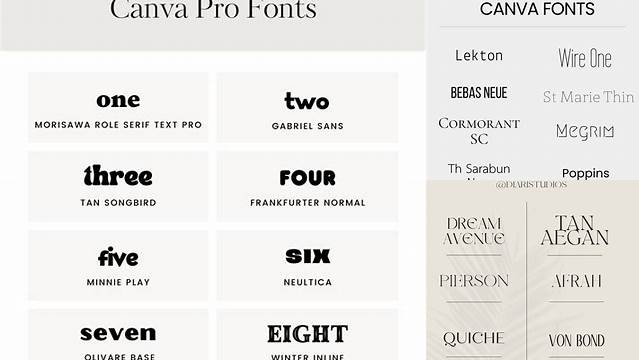
Canva's Minimalist Bold Fonts: Design Like A Pro
Hey guys! Let's dive into something super cool: minimalist bold fonts in Canva. If you're looking to create eye-catching designs that scream simplicity and sophistication, you're in the right place. This article is your ultimate guide to mastering these powerful fonts and using them to elevate your Canva game. We'll explore everything from choosing the perfect font to pairing them with other design elements and using them for various projects. Get ready to transform your designs and make them pop with minimalist boldness!
1. Understanding Minimalist Design and Its Impact
So, what exactly is minimalist design, and why is it so important? Well, minimalist design is all about stripping away the unnecessary and focusing on the essentials. It’s about creating a clean, uncluttered look that communicates your message with clarity and impact. Think of it as the opposite of visual clutter. In a world saturated with information and flashy visuals, minimalist designs cut through the noise, grabbing attention and conveying your message directly. This approach isn’t just about aesthetics; it’s a philosophy that emphasizes functionality, simplicity, and the effective use of negative space. The beauty of minimalist design lies in its ability to be both modern and timeless, ensuring your designs remain relevant and visually appealing for years to come. Minimalist designs are incredibly versatile, working well across a wide range of projects, from website layouts to social media graphics and print materials. The key is to embrace restraint, choosing each element carefully and avoiding anything that doesn't contribute to the overall message. This can mean using a limited color palette, simple typography, and carefully chosen imagery. In a world where attention spans are shrinking, a minimalist approach ensures your message is delivered clearly and memorably.
Now, what kind of impact does this have? A lot! Minimalist designs often convey a sense of professionalism and trustworthiness, which is critical for businesses and individuals looking to build credibility. When a design is clean and easy to understand, it shows that you value clarity and precision. It shows you have a clear understanding of your message and your audience. It demonstrates that you’ve put careful thought into your communication. Furthermore, minimalist designs often enhance the user experience, making it easier for viewers to consume information. By removing distractions and focusing on the core elements, minimalist designs make it easier for your audience to understand your message and take action. With fewer visual elements to process, the viewer’s eye is naturally drawn to the most important aspects of your design. This is where minimalist bold fonts become crucial. They help you direct attention to the most important words or phrases. This allows you to communicate your key messages quickly and efficiently. This ability to guide the viewer's eye is one of the most powerful benefits of minimalist design. By using minimalist bold fonts strategically, you create visual hierarchies that ensure that your message gets across. The ability to create a powerful impact with simple means is where minimalism truly shines.
2. Choosing the Right Minimalist Bold Fonts in Canva
Alright, let's talk about picking the perfect minimalist bold fonts in Canva! This is where the fun begins. The font you choose can dramatically impact your design's overall feel, so it’s essential to make informed decisions. Here are some of the best, and how to use them effectively:
- Roboto: A classic sans-serif that is clean, modern, and incredibly versatile. It’s perfect for body text and headlines, as it's highly readable and works well in both large and small sizes. You can find various weights of Roboto in Canva, allowing you to create visual hierarchies. For a bolder statement, opt for Roboto Black. For a softer touch, stick with the regular or light weights. It is one of the most popular fonts due to its readability and neutral appearance.
- Poppins: This is another great sans-serif that is known for its rounded corners and friendly appearance. Poppins is excellent for headlines and display text, adding a touch of personality without sacrificing legibility. Consider using Poppins Bold for key messages. You can use Poppins in a wide array of design contexts, from websites to social media. Its clean lines and friendly design make it suitable for various applications. It’s a great choice if you want to convey a sense of approachability.
- Montserrat: Inspired by the architecture of the Montserrat neighborhood in Buenos Aires, this sans-serif has a geometric feel. It's a great choice for creating a modern and stylish look. Montserrat is best for headlines and display text. Use Montserrat Bold for maximum impact. It works particularly well when paired with a more delicate font for body text. It is a popular option for creating a bold and contemporary aesthetic, its use is particularly impactful.
- Lato: A sans-serif known for its friendly yet professional appearance. Lato is highly versatile, suitable for headlines and body text alike. It has a clean, simple design that offers excellent readability. It's a great choice for projects that require a balance of clarity and visual appeal. The various weights of Lato, including bold, allow you to create a clear visual hierarchy. This font helps ensure that your message is both accessible and engaging.
Key Considerations:
- Legibility: Always prioritize readability. Your font should be easy to read at various sizes and on different backgrounds. Test your design on different devices to ensure it remains clear.
- Personality: The font's personality should align with your message. Do you want to convey a sense of playfulness? Sophistication? Select a font that matches your brand's tone.
- Contrast: Ensure sufficient contrast between your font and background color. This increases readability. Avoid low contrast combinations, as they strain the eyes.
- Pairing: Consider how your bold font will pair with other fonts in your design. Choose a font that complements your bold headline to create a cohesive look. Less is often more; avoid mixing too many different fonts.
3. Font Pairing Strategies for Minimalist Designs in Canva
So, you've chosen your bold font. Now what? The next step is selecting a complementary font to create a harmonious visual experience. Good font pairing is an art! Here are some strategies to help you create stunning designs:
- Contrast is Key: Pair a bold, attention-grabbing font with a more subtle font for the body text. The contrast will create visual interest and guide the viewer's eye. Use a bold sans-serif headline with a serif font for body text. Or, combine a bold serif headline with a sans-serif body font. This creates a balanced look that is easy on the eyes. For example, use Montserrat Bold for headlines and Open Sans for the body text.
- Match the Mood: Ensure your fonts share a common aesthetic. Use a modern bold font with a contemporary body font, like pairing Poppins with Lato. For a more classic aesthetic, combine a traditional bold serif with a classic serif body font. The goal is for the fonts to feel related, supporting your brand's identity.
- Use Different Weights: Within the same font family, experiment with different weights (light, regular, bold) and sizes. This creates hierarchy without introducing multiple font styles. Use a heavier weight for headlines and a lighter weight for subheadings or body text. This is a simple, effective way to guide the reader’s eye. This method is also a great way to maintain consistency in your design.
- Limit the Number of Fonts: Don’t use too many font styles in one design. It can make your design look cluttered and confusing. Stick to two or three fonts, maximum. Use one for headlines and subheadings, and another for body text. This makes your design look clean and professional.
- Experiment with Font Size and Spacing: Adjust the size and spacing between your fonts to create the desired visual effect. Larger fonts grab attention, and proper spacing enhances readability. Experiment with different sizes until you find a good balance. Adjust line-height and letter-spacing to refine the look.
- Consider the Context: The best font pairings depend on the project. A website needs different fonts compared to a brochure. Social media graphics benefit from clean, readable fonts. Choose fonts that suit your project's purpose.
4. Color Palette Integration with Bold Fonts
Colors and fonts are a power couple! They work together to create a visual language that speaks volumes. In minimalist designs, the right color palette, used alongside your bold fonts, is crucial. Let’s break down how to nail this.
- Monochromatic Palettes: A monochromatic color scheme uses different shades and tints of a single color. This approach is simple and elegant. It highlights the typography. For example, use a bold black font on a light gray background. Or, use navy blue against a lighter blue for a clean and sophisticated look. This allows the font to take center stage.
- Neutral Palettes: Neutrals like white, black, gray, and beige create a clean backdrop for your text. These colors offer high contrast and make your bold fonts stand out. Pair a bold black font with a crisp white background for maximum impact. Or, use a gray font on a beige background for a softer look. Neutral palettes are incredibly versatile and work for any project.
- Limited Color Palettes: Use a palette of two or three colors, including your bold font color. For example, combine a bold font color (e.g., navy blue) with a neutral background (white or gray) and a secondary accent color (e.g., gold). This approach keeps the design focused. It is also super effective and memorable. Choose colors that complement each other and reflect your brand.
- High Contrast: Ensure a strong contrast between your font color and the background color. This is crucial for readability. If you have a light background, use a dark bold font. If you have a dark background, use a light bold font. Avoid low-contrast combinations, which are difficult to read. This is especially important for online and digital content.
- Color Psychology: Colors have psychological effects! Black is associated with sophistication, white with cleanliness, and red with energy. Consider the emotions you want to evoke. Choose colors that reflect your brand's personality. This is what makes your content stand out.
5. Canva's Tools and Features for Bold Font Mastery
Canva is packed with tools and features that let you take your minimalist bold font designs to the next level. Let’s get familiar with them, shall we?
- Text Effects: Explore Canva's text effects, like shadows, outlines, and curves. These can add depth and style to your bold fonts. Use outlines to make your text pop against busy backgrounds. Use shadows for a subtle 3D effect. Experiment with curves to make your text fit circular designs. These features offer tons of creative control and customization.
- Spacing and Alignment: Use Canva's spacing tools to adjust letter spacing, line height, and alignment. Proper spacing is crucial for readability. Ensure your text is aligned correctly for a polished look. Use letter-spacing to adjust how your bold fonts look in the title. Use line-height to create a visual hierarchy in your body text.
- Transparency: Control your font's transparency to create subtle effects. Use this technique for watermarks or design elements in the background. This adds a sense of depth and visual interest without overwhelming the design. Reduce the transparency of a bold font to create a soft, layered effect. This is great for achieving a modern, minimalist look.
- Text Styles: Save your font, size, and color preferences as text styles. This keeps your designs consistent. Use these styles across your projects. Consistency is key for branding. By using text styles, you streamline your design process. This keeps everything looking professional.
- Layers: Canva's layers feature lets you arrange elements in your design. This lets you place your bold fonts in the foreground or background. Use layers to add depth and visual interest. This offers more control over the design. The layers feature helps you to manage complex layouts.
- Templates: Canva offers a wide range of templates with pre-designed bold fonts. Explore these templates to get inspiration. Then, customize them to fit your project's needs. Templates are a fantastic resource. They save time and spark creative ideas. They are a great way to learn different design techniques.
6. Designing Effective Headlines with Minimalist Bold Fonts
Headlines are your design's first impression! That’s why using minimalist bold fonts strategically is so important. Here’s how to create headlines that grab attention and deliver your message:
- Keep it Concise: Headlines should be short and to the point. Avoid long, wordy phrases. Use a few powerful words. This is what makes them memorable. The goal is to get your audience's attention quickly.
- Highlight the Key Message: Use your headline to convey the main idea of your content. It should clearly state what the design is about. Use a bold font to emphasize your key message. This will make your main point immediately clear to the viewer.
- Hierarchy: Ensure your headline is the most prominent element. Make it larger than other text in your design. Position it at the top of your content. Use contrast and whitespace to ensure it stands out. This helps guide the viewer’s eye and convey importance.
- Choose the Right Font: Select a bold font that reflects your brand's personality. Roboto, Poppins, and Montserrat are excellent choices. Make sure your font is easily readable. This ensures that the audience can quickly understand the message.
- Whitespace: Use whitespace around your headline to give it breathing room. Avoid crowding the headline with other elements. It is important that your headline is clean and easy to read. White space helps the headline stand out.
- Alignment: Align your headline in a way that is visually appealing. Consider left alignment, center alignment, or right alignment. Your alignment should be consistent with the overall design. Choose the alignment that creates a balanced look.
- Color Contrast: Use color contrast to make your headline stand out from the background. A dark font on a light background, or vice versa, ensures good visibility. Make sure your headline is legible. This ensures the audience can understand the message.
7. Body Text Design and Readability with Bold Fonts
Body text needs to be easy to read, even if you're using a bold headline. Here’s how to achieve readability and visual appeal when combining your bold headlines with body text:
- Choose a Readable Font: Select a font that’s clear and easy to read. While your headline might be bold, your body text should be comfortable to consume. Font size must be appropriate for the reader's eyes. Keep the body text at a size that is easy to read on different devices.
- Font Pairing: Choose a body font that complements your bold headline. Sans-serif fonts work well with serif fonts. This provides a balanced and visually appealing contrast. Ensure your fonts have a consistent style.
- Font Size and Line Height: Adjust your font size to ensure readability. A line height is important too, so the lines do not overlap. Ensure you use appropriate line spacing to avoid overcrowding the text. Adjust the line height so that the text is comfortable to read.
- Alignment: Left-align your body text for easy reading. Avoid justified text for long paragraphs. Use consistent alignment throughout your design. This helps create a clean and organized layout.
- Whitespace: Use white space around your body text and between paragraphs. This helps the reader's eye and gives the text breathing room. Adequate whitespace prevents the text from looking crowded. The whitespace gives a sense of ease and provides visual interest.
- Contrast: Maintain good contrast between your body text and the background. The colors need to be contrasting. High contrast increases readability. The choice between light and dark text should be made carefully.
- Structure: Break up your body text into short paragraphs. Use headings and subheadings to guide the reader. Bullet points and lists are excellent for organizing information. These elements help with readability and the flow of information.
8. Creating Visual Hierarchy with Bold Fonts in Canva
Visual hierarchy guides the viewer’s eye, letting them know what is important. Here's how to create it with your bold fonts:
- Font Size: Use varying font sizes to show the importance of different elements. Your headline should be the largest, followed by subheadings, and then body text. Larger fonts are more impactful and catch the eye. This helps the reader understand the flow of your information.
- Font Weight: Use font weight (light, regular, bold) to show hierarchy. Bold fonts grab more attention. Use bold for headlines and subheadings. Use lighter weights for body text. This directs attention where you want it.
- Color Contrast: Use different colors to distinguish elements. The more important the element, the higher the contrast. For example, you could use a bright color for your headline and a more subdued color for your body text. Color is a powerful tool for visual hierarchy. This immediately conveys to the viewer what is most important.
- Spacing: Use spacing and whitespace to create visual separation. More space around an element indicates greater importance. This helps elements stand out. Add extra space above your headline to make it stand out. This creates breathing room and attracts attention.
- Placement: Place the most important elements at the top or center of your design. Eyes are naturally drawn to the top. Then, lead them down the design in a logical manner. Use the design to create a narrative.
- Alignment: Consistent alignment creates visual order. Left-align your body text to create a structured feel. This reinforces your message. Make sure your text is uniform throughout your design.
- Font Pairing: Use different font styles to create hierarchy. Pair a bold, modern font for your headline with a more readable font for your body text. This sets the stage for a consistent layout.
9. Applying Minimalist Bold Fonts to Social Media Graphics
Social media is all about catching attention fast. Here's how to use minimalist bold fonts to make your social media graphics shine:
- Choose Concise Text: Keep your text short. Social media is all about quick consumption. Make your message clear and direct. Use bold fonts to make your keywords more prominent.
- Optimize for Readability: Select fonts that are easy to read on small screens. Use high-contrast colors. Use adequate spacing around your text. Ensure your text is readable, no matter what device someone is using.
- Use a Consistent Brand: Use your bold font for your brand identity. Consistency is key to recognition. It helps build brand awareness. Use a font that reflects your brand's personality.
- Whitespace: Use whitespace to create a clean look. This makes your graphics more visually appealing. The whitespace is essential for your text to pop. Use it to frame your headlines.
- Visual Balance: Balance your text with other design elements. Add images. Use a simple color palette. The goal is to achieve a well-balanced visual.
- Optimize for Each Platform: Tailor your design to each social media platform's specifications. Each platform has its own dimensions. This maximizes the visual impact. Create unique designs for Instagram, Facebook, Twitter, etc.
- Use Templates: Canva offers ready-made templates. Start with these to speed up the design process. Customize them to match your needs. Templates can also inspire you.
10. Minimalist Bold Fonts for Website Design and Branding
Your website and branding are your digital storefront. Here's how to use minimalist bold fonts to create a professional and memorable presence:
- Establish Brand Identity: Use a bold font that reflects your brand personality. A well-chosen font builds brand recognition. Consistency builds trust with your audience. Choose fonts that match the tone of your brand.
- Prioritize Readability: Ensure your font is easy to read. Readability is key to user experience. The readability will determine if a user stays on your page. High contrast will increase readability.
- Create Visual Hierarchy: Use different font sizes and weights to create visual hierarchy. Lead your visitors. Guide them through your website's content. The hierarchy should be easy to follow.
- Design a Clean Layout: Avoid clutter. Embrace a clean, minimalist layout. Whitespace is critical to design. It makes your site more appealing.
- Consistency is Key: Use your chosen bold font throughout your website and branding materials. This reinforces your brand identity. It keeps your design consistent.
- Consider Mobile Responsiveness: Ensure your website is mobile-friendly. Your fonts need to be readable on all devices. Test your design on different devices.
- Use Call-to-Actions: Make your calls-to-action noticeable with a bold font. Ensure they stand out. Encourage your visitors to take action. The font should direct the action.
11. Creating Stunning Posters and Flyers with Bold Fonts
Posters and flyers are all about grabbing attention fast! Here’s how minimalist bold fonts can make them work for you:
- Bold Headlines: Make the headline the main focus. Use a bold font to make it stand out. The headlines must capture attention. The headline must be memorable and to the point.
- Balance Text and Imagery: Use a clean layout. The images are just as important as the text. Don't overcrowd the design. It will keep your audience engaged. Balance the images and text to maximize your design.
- Choose a Readable Font: Select a font that's easy to read at a distance. This ensures your message is clear. Font size plays a crucial role in readability. Font choice is essential, as well.
- Use Color Contrast: Ensure there's a strong contrast between the font and the background. Contrast is crucial for readability. Use colors that make the text stand out.
- Keep it Simple: Avoid visual clutter. A clean design is most effective. Minimize the elements for more impact. Keep only the necessary elements.
- Alignment and Spacing: Align your text consistently. Use whitespace to give your text breathing room. The spacing is critical for readability. Proper spacing keeps your audience engaged.
- Call-to-Action: Include a clear call-to-action. Make it prominent. Make the call-to-action obvious. Tell your audience what you want them to do.
12. Choosing the Right Font for Different Project Types
Different projects need different fonts. Here's a breakdown to help you choose:
- Websites: Prioritize readability. Use a bold, clean font for headlines. Consider fonts like Roboto or Open Sans. Ensure your font is mobile-friendly.
- Social Media: Opt for short, impactful headlines. Select fonts that are easy to read on small screens. Use fonts that reflect your brand identity.
- Posters/Flyers: Make sure it's eye-catching. Use a bold font for the headline. Choose a font that's readable from a distance.
- Logos: Choose a font that reflects your brand identity. Design your logo to be memorable. Choose a font that's unique and scalable.
- Presentations: Keep your font simple and legible. Use bold fonts for headings and key points. Ensure your fonts are readable on the screen.
13. Typography Best Practices in Canva
Let’s go over some typography best practices in Canva to ensure your designs look great:
- Font Size: Select font sizes appropriate for your design's purpose. Headlines need to be larger than body text. The font size should be easy to read.
- Line Height: Set your line height correctly. This helps with readability. Adjust your line height to ensure it isn't too cramped or too wide.
- Letter Spacing: Adjust your letter spacing to improve readability. You may want to increase the spacing in your headline. The spacing should make your content clear.
- Alignment: Use consistent alignment. Left-align most body text. Center-align shorter text.
- Color Contrast: Ensure the contrast between the font and the background. Always make the text visible. Choose colors that complement each other.
- Whitespace: Use whitespace to give your text breathing room. Avoid overcrowding your design. The whitespace makes the design appealing.
- Font Pairing: Select fonts that complement each other. It will give your content a professional look. Choose the right font combination.
14. Experimenting with Bold Font Variations
Ready to get creative? Let's explore different ways to use your bold fonts:
- Font Weight: Vary the weight to create hierarchy. Make a bold headline stand out. Use a light or regular font for body text. Ensure the fonts are consistent.
- Font Style: Use italicized fonts for emphasis. Use italics sparingly. It adds visual interest. Make the design clear and engaging.
- Text Effects: Use Canva's text effects (shadows, outlines). Use the text effects to enhance your font. The effects can make your font stand out.
- Color: Experiment with different colors for your fonts. Consider the emotional impact of the colors. Use colors that suit your design.
- Backgrounds: Use backgrounds that make your font pop. Make sure the background complements the font. Avoid backgrounds that compete with the text.
- Layering: Layer your text to add depth. This adds an interesting effect. You can create unique designs.
15. Utilizing Canva's Templates and Pre-designed Elements
Canva's templates and pre-designed elements are your best friends! Here’s how to make the most of them:
- Browse Templates: Explore Canva's vast library of templates. Look for designs with bold fonts. Customize them to fit your needs. The templates can serve as inspiration.
- Font Combinations: Pay attention to font combinations in templates. They can serve as examples. Learn to pair the fonts. The template offers the design's framework.
- Pre-designed Elements: Use Canva's pre-designed elements. Incorporate them to complement your bold fonts. Elements will help complete the design. The elements make your design more impactful.
- Customize: Adapt any design element in the templates. Change the text, color, and layout to match your brand. The templates will help bring your ideas to life.
- Learn and Adapt: Learn from the design choices. Adapt the style to your unique needs. The use of templates saves time.
16. Bold Fonts in Combination with Images and Graphics
Images and graphics make your designs even more dynamic! Here's how to pair them with bold fonts:
- Complementary Images: Choose images that support your message. Select images that pair well with the font. Ensure the image and text are aligned.
- Use Overlays: Add text overlays to your images. This makes the text pop. Use a semi-transparent background. Make the overlay easy to read.
- Visual Hierarchy: Use images to create visual hierarchy. Place the text in a way that's easy to follow. The image and text must have a clear message.
- Color Coordination: Coordinate the color of the text with the image. The text should stand out. The design will look professional.
- Graphics Integration: Integrate graphic elements. Make the design visually appealing. The font and the graphics will work together.
- Whitespace and Balance: Maintain a balance between text and images. Utilize the whitespace. The design will be easy to view.
17. Using Bold Fonts to Create a Sense of Urgency
Need to get a message across quickly? Bold fonts can help create urgency:
- Make it Big: Use larger fonts. Make the text immediately clear. Create a visual impact. The size and boldness of the font will attract attention.
- Choose Urgent Wording: Use words and phrases that convey urgency. Incorporate words like